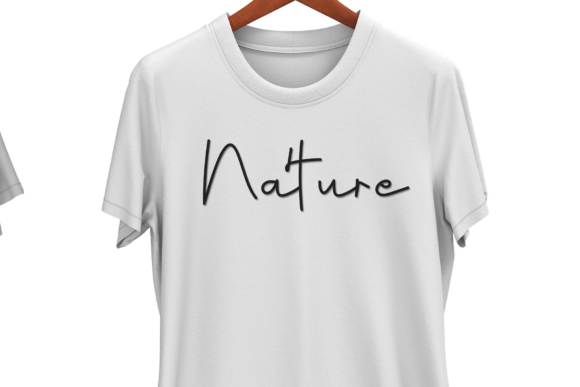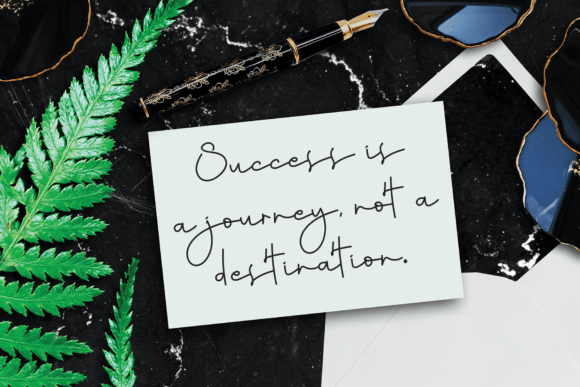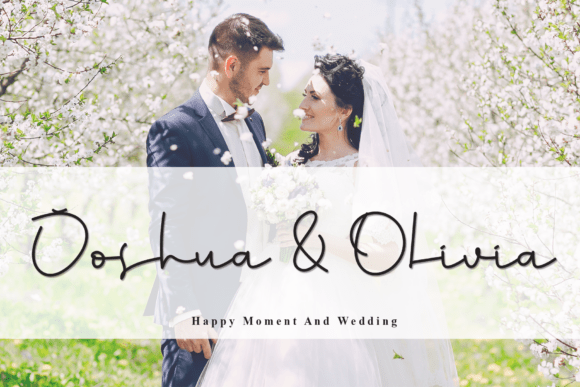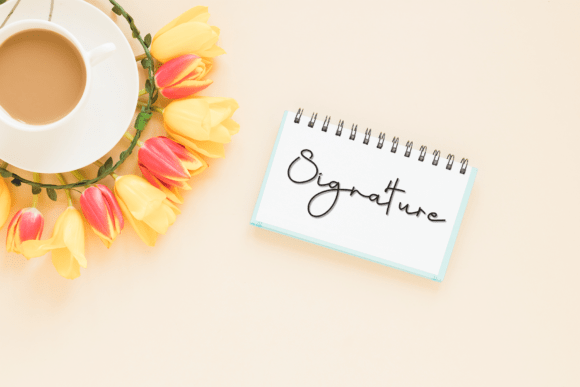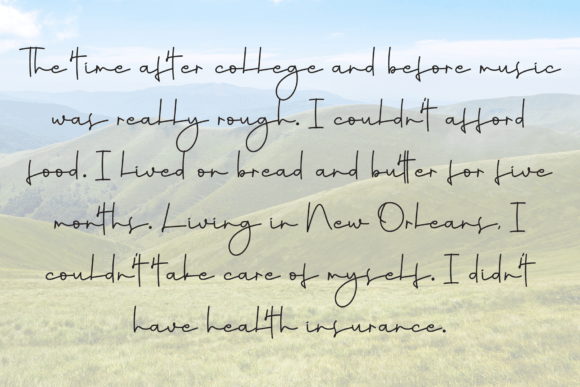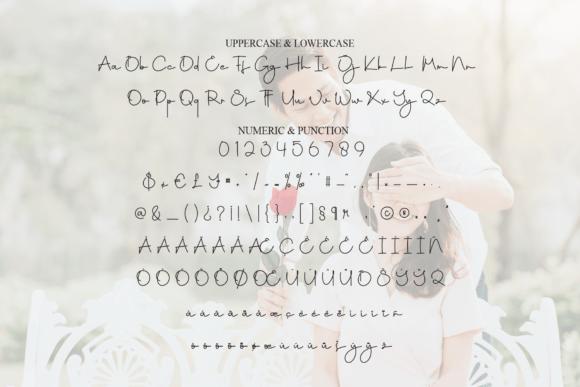
The Designer’s Dilemma: Finding the Perfect Font for Elegant Projects
I still remember the countless hours I spent searching for the ideal font for a wedding stationery project. My client wanted something that exuded modern elegance, yet had a playful touch. I scrolled through page after page of Google results, tried out numerous fonts, but nothing seemed quite right. That was until I stumbled upon Hey Romantic ✨. This captivating handwritten font style instantly caught my attention with its unique blend of playful energy and sophisticated grace.
Hey Romantic: A Font that Strikes a Chord
Hey Romantic is more than just a font – it’s an expression of modern elegance. Its tall, rhythmic letterforms and fluid, expansive swashes mimic the natural flow of a felt-tip pen on high-quality stationery. This results in an airy verticality and a “casual-chic” silhouette that is perfect for luxury event branding, independent boutique logos, heartfelt wedding stationery, and high-impact “lifestyle-curator” social media headers.
An Honest Review: The Good and the Quirks
- ✨ Elegant and modern design: The font’s unique blend of playfulness and sophistication makes it perfect for a wide range of projects.
- ✅ Highly versatile: From wedding stationery to luxury event branding, Hey Romantic adapts seamlessly to different design needs.
- 💫 Beautiful swashes and ligatures: The font’s expansive swashes and ligatures add a touch of elegance and whimsy to any design.
- 🤔 Some characters may require manual kerning: As with many handwritten fonts, some characters may need manual kerning to achieve optimal results.
- ⚠️ Not suitable for body text: Due to its elegant and cursive nature, Hey Romantic is best used for headlines, titles, or short paragraphs.
The Designer Inspiration Behind Hey Romantic
Although the true story behind Hey Romantic’s creation remains a mystery, it’s easy to imagine a designer who was inspired by the elegance of handwritten calligraphy and the playfulness of modern typography. Perhaps they wanted to create a font that would capture the essence of a romantic gesture – a handwritten letter, a heartfelt message, or a beautiful piece of art.
| Font Name | Hey Romantic Font |
| What type of projects is Hey Romantic best suited for? | Luxury event branding, independent boutique logos, heartfelt wedding stationery, and high-impact “lifestyle-curator” social media headers. |
| Can I use Hey Romantic for body text? | No, Hey Romantic is best used for headlines, titles, or short paragraphs due to its elegant and cursive nature. |
| Does Hey Romantic support OpenType features? | Yes, Hey Romantic supports OpenType features, including swashes, ligatures, and stylistic alternates. |